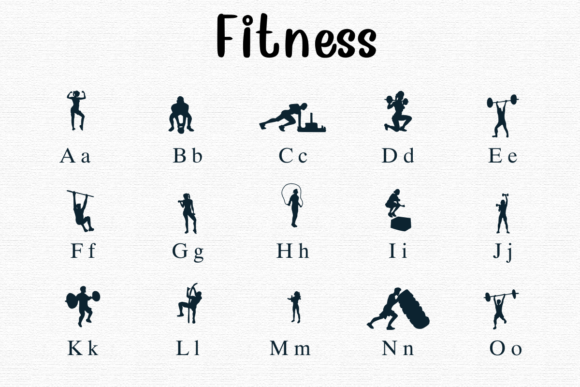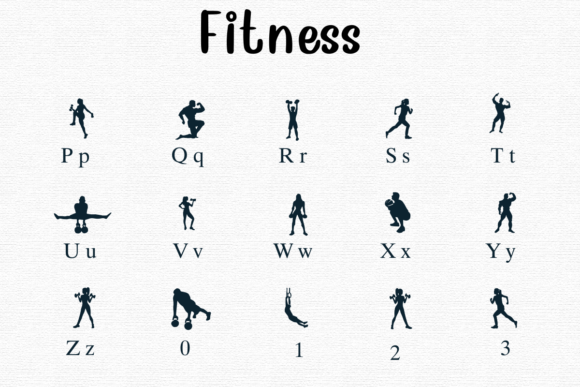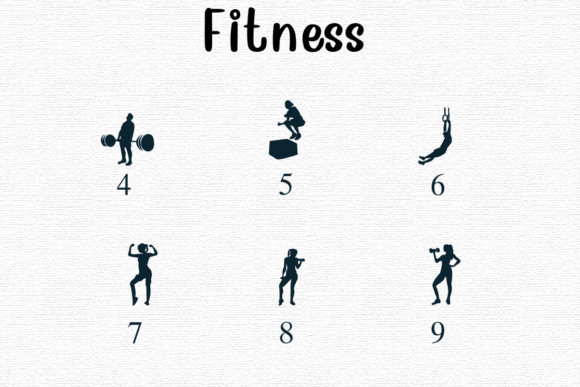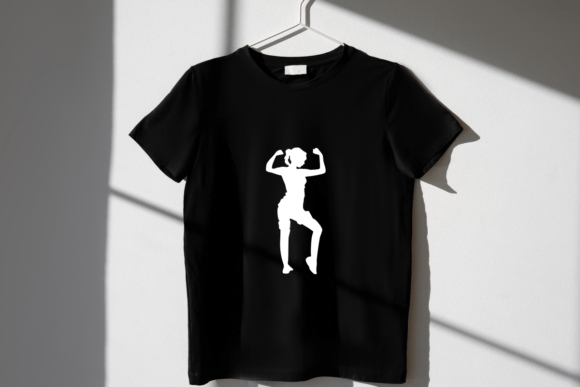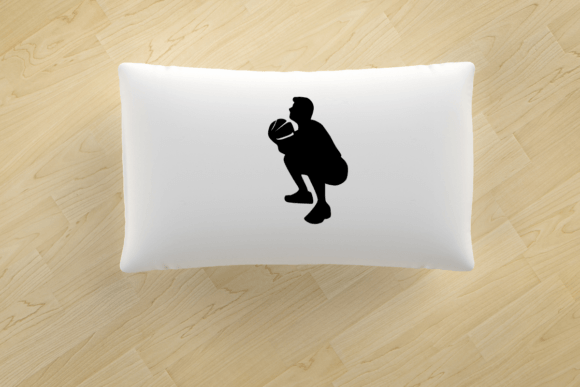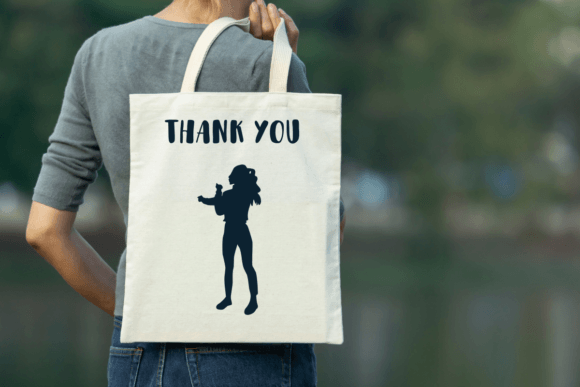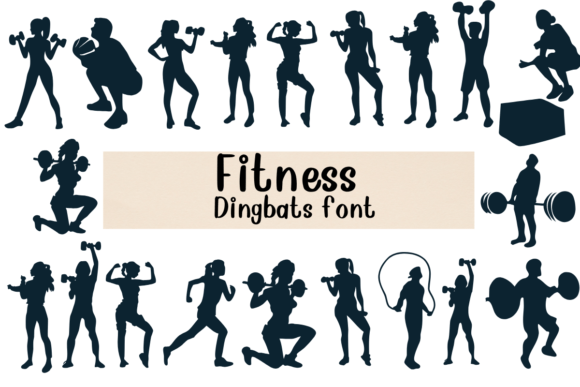
Getting Fit with Fitness Font: The Ultimate Dingbat Font for Health Enthusiasts
Are you a fitness enthusiast, a personal trainer, or a health blogger looking for a unique way to add some excitement to your projects? Look no further than the Fitness Font, a fun and engaging dingbat font that features little pictures of people doing different fitness exercises. This innovative font is perfect for designers, crafters, and anyone looking to add a touch of fitness flair to their work.
What is Fitness Font?
Fitness Font is a specially designed dingbat font that showcases a variety of fitness exercises through its characters. Each letter or number in the font corresponds to a different exercise, such as running, lifting weights, or practicing yoga. This creative font allows you to add a visual representation of fitness to your projects, making it an excellent choice for fitness-related designs, such as workout plans, health blogs, or gym promotions.
Key Features of Fitness Font
- Unique Exercise Icons: Each character in the font represents a different fitness exercise, providing a visually engaging way to convey your message.
- Easily Customizable: Fitness Font can be used in various design software, allowing you to change colors, sizes, and styles to fit your project’s needs.
- Fun and Engaging: The font’s playful and energetic vibe makes it perfect for projects that require a motivational and inspiring tone.
- Dingbat Font Style: Fitness Font is designed as a dingbat font, making it easy to use and integrate into your designs.
Who Can Benefit from Fitness Font?
Fitness Font is an excellent resource for a wide range of professionals and enthusiasts, including:
- Personal Trainers: Create engaging workout plans, brochures, or social media posts with a fitness twist.
- Health Bloggers: Add a visually appealing element to your blog posts, making your content more shareable and fun to read.
- Graphic Designers: Expand your design portfolio with a unique font that can be used in various fitness-related projects.
- Crafters: Use Fitness Font to create inspiring and motivational cards, posters, or decorations for fitness enthusiasts.
Fitness Font is a unique and engaging dingbat font that offers a fun way to add fitness icons to your projects. With its exercise-themed characters, customizable features, and wide range of applications, Fitness Font is an excellent resource for designers, crafters, and fitness enthusiasts alike. Whether you’re creating workout plans, health blogs, or gym promotions, Fitness Font is sure to inspire and motivate your audience.